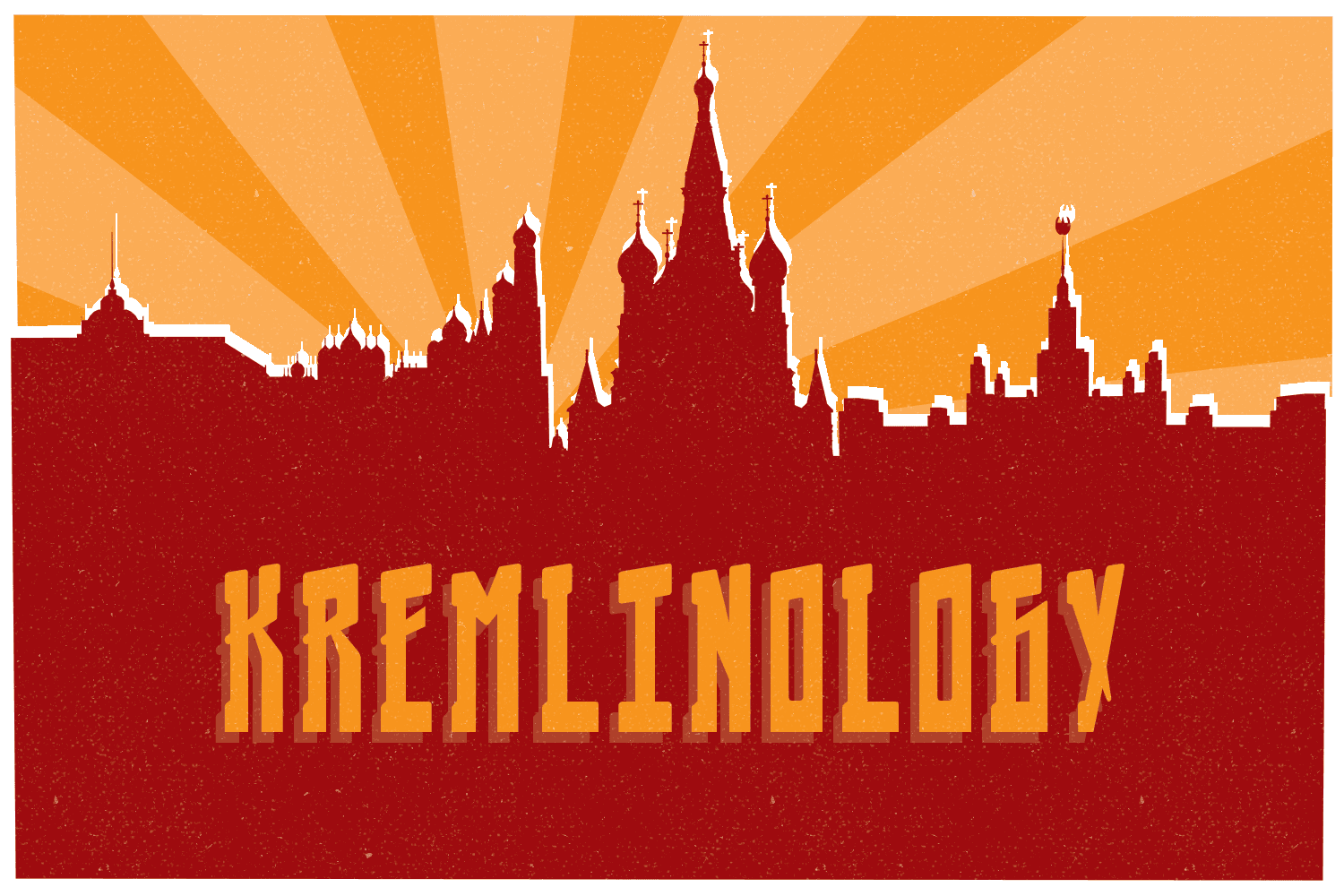
Kremlinology
Like the study of Kremlinology, this font is an interpretation of Soviet culture for Western audiences.
Based on a vintage Russian poster but not in the original Cyrillic, it is an attempt to capture the feel of the era if not the actual characters.